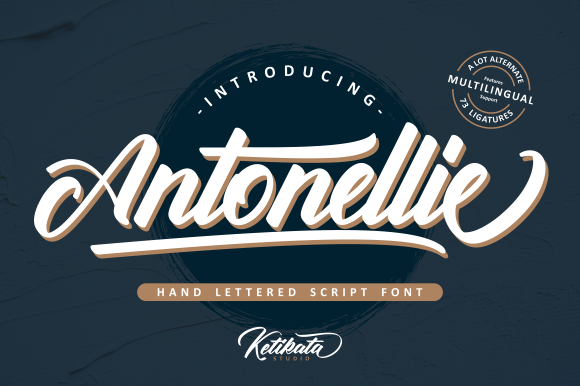
Introducing Antonellie Font, a Script Font that Embraces Boldness and Creativity
With its strong strokes and expressive charm, the Antonellie Font is a true masterpiece in the world of typography. Carefully crafted with hand lettering, this script font brings a unique touch to your designs, allowing your words to make a powerful impact.
Embark on a journey of customization with Antonellie's diverse selection of stylistic alternates and swashes. Unleash your creativity and tailor the font to match your unique vision. Whether you're designing captivating quotes, creating eye-catching merchandise, or crafting stunning packaging, Antonellie will elevate your designs to new heights.
Experience the versatility of Antonellie in a myriad of applications. Its bold presence adds a touch of elegance to business cards, leaving a lasting impression on potential clients. Unleash your imagination and use Antonellie to create personalized invitations, greeting cards, and social media posts that resonate with your audience.
Antonellie isn't just a font; it's an artistic expression that brings your words to life. Its captivating curves and dynamic lines create an emotional connection with your audience, leaving a lasting impact. Embrace the power of Antonellie and watch your designs flourish with a touch of sophistication and style.